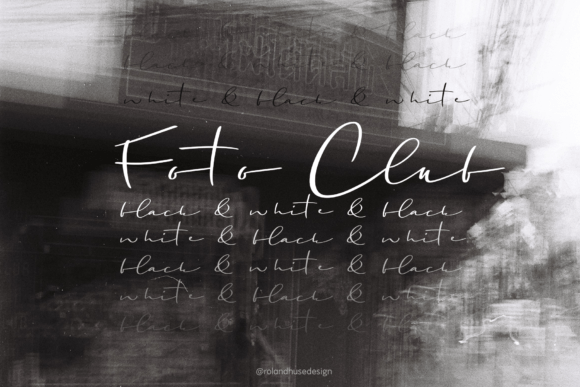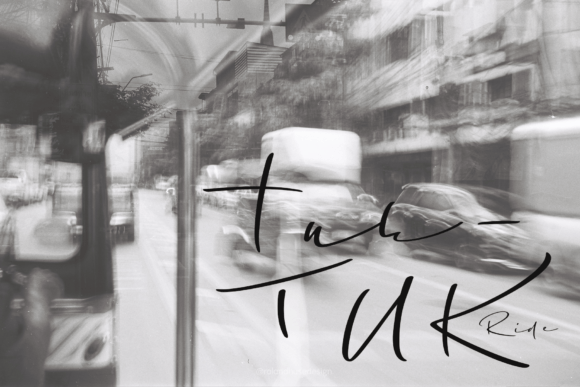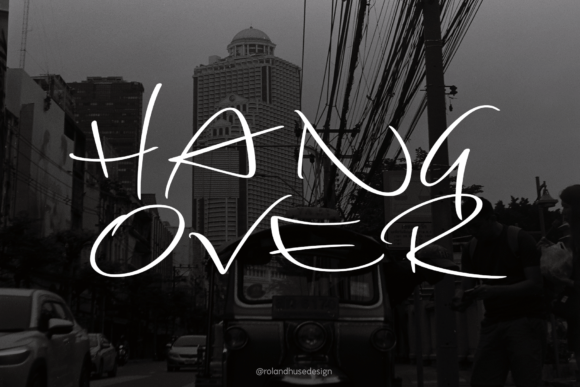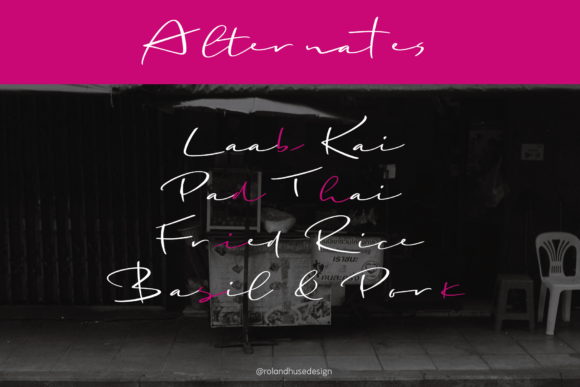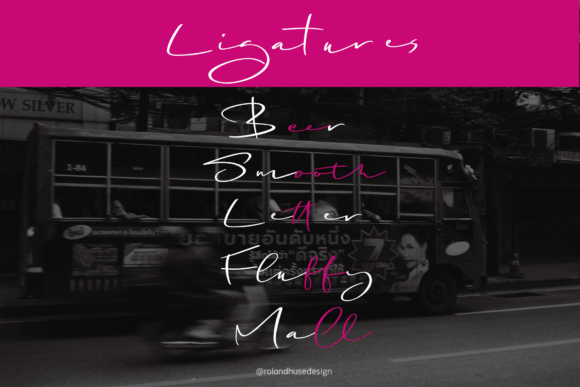
Unleash Your Creativity with Bangkok Restless Font
Have you ever stared at a blank canvas, feeling stuck and unsure of where to start? You’ve got a vision, but the words just won’t come together. That’s when you know it’s time to break out the right tools and let your creativity shine. For designers and artists, finding the perfect font can be the difference between a mediocre project and a masterpiece.
Enter the Bangkok Restless Font, a fun and trendy handwritten font that’s sure to add a touch of excitement to any design. With its contemporary and fresh feel, this font is perfect for anyone looking to make a statement. Whether you’re designing a logo, creating a social media post, or crafting a newsletter, the Bangkok Restless Font is a valuable addition to your creative arsenal.
Bangkok Restless Font Key Features
- Font Style: Script, Casual, Modern
- Unique Characteristics: Bangkok Restless Font features a unique blend of traditional Thai and modern script styles, with a high level of expressiveness and energy.
- Language Support: Multilingual support, including Latin, Thai, and other languages
Bangkok Restless Font Review
I’ve been experimenting with the Bangkok Restless Font, and I have mixed feelings about it. On the one hand, there are some aspects that I truly appreciate. ✨ The font’s playful, energetic vibe is infectious and would be perfect for creative projects that need a fun touch. ✨ The font’s flexibility is also impressive, with a wide range of styles that can be used for various applications, from headings to body text. ✨ Additionally, the font’s customization options allow for a high degree of control, making it easy to fine-tune the look to suit your needs.
However, there are some limitations that prevent me from giving it a full thumbs up. ⚠️ For one, the font’s readability can be a concern, especially at smaller font sizes. ⚠️ The font’s irregular letterforms and ornate details can make it difficult to decipher, which may not be ideal for text-heavy content. ⚠️ Furthermore, the font’s bold styles can be a bit too over-the-top, which may not be suitable for all design projects.
Overall, I think the Bangkok Restless Font is a solid choice for designers who want to add some flair to their work. While it has its limitations, its unique energy and flexibility make it a great option for creative projects that need a little extra oomph.
- Perfect for creative projects that need a fun touch
- Wide range of styles for flexibility
- Customization options for fine-tuning the look
- Readability can be a concern at smaller font sizes
- Irregular letterforms and ornate details may be difficult to decipher
- Bold styles may be too over-the-top for some design projects
Using Bangkok Restless Font: A Practical Guide
The Bangkok Restless font is ideal for creating modern and edgy designs. Use it for:
– Social media graphics and advertisements
– Event invitations and promotional materials
– Editorial and blog content
To get the most out of the Bangkok Restless font, try combining it with other fonts and design elements to create a unique and visually appealing look. Experiment with different font sizes, colors, and styles to achieve the desired effect.
Alternatives to Bangkok Restless Font
Pacifico is a beautiful, cursive script font perfect for creating elegant and sophisticated designs. It is ideal for use in wedding invitations, greeting cards, and other special occasions. Pacifico is a more elegant and refined alternative to Bangkok Restless Font, which is bolder and more energetic.
Playfair Display is an elegant, high-end serif font ideal for use in luxury branding, advertising, and editorial design. It is perfect for creating a sense of sophistication and refinement. Playfair Display is a more formal and traditional alternative to Bangkok Restless Font, which is more casual and edgy.